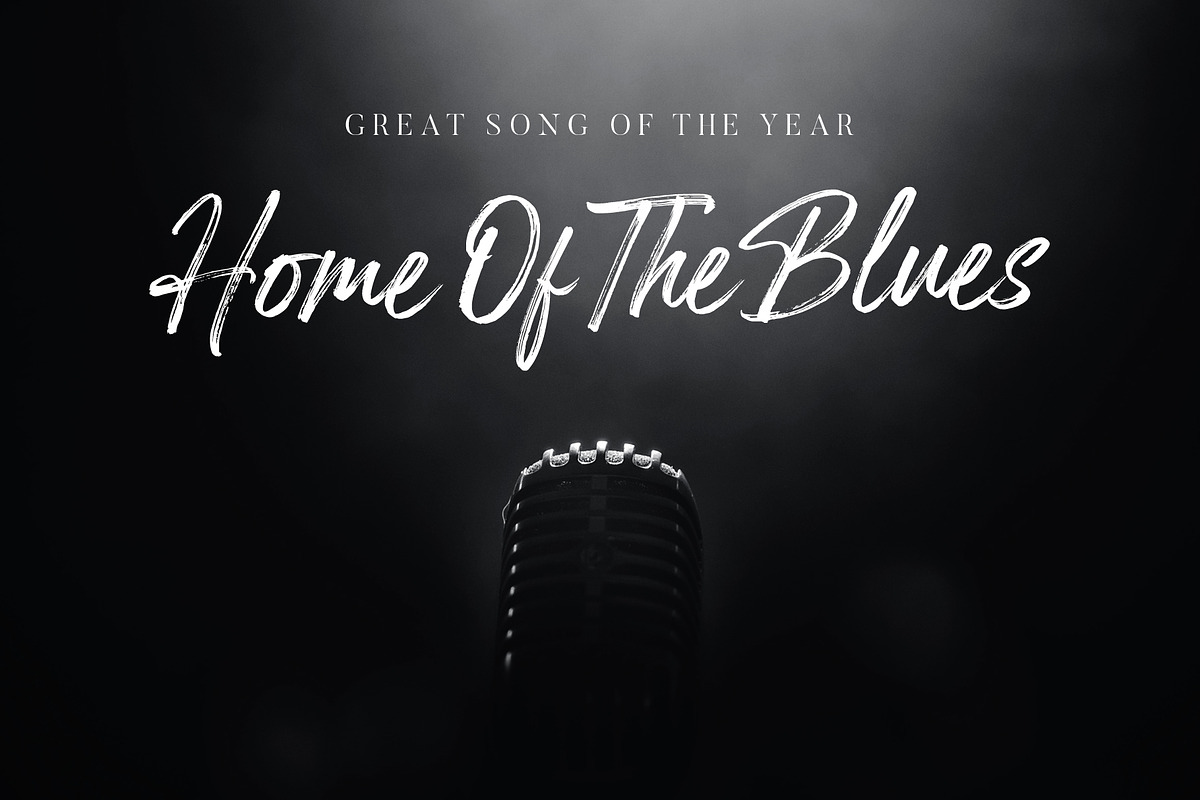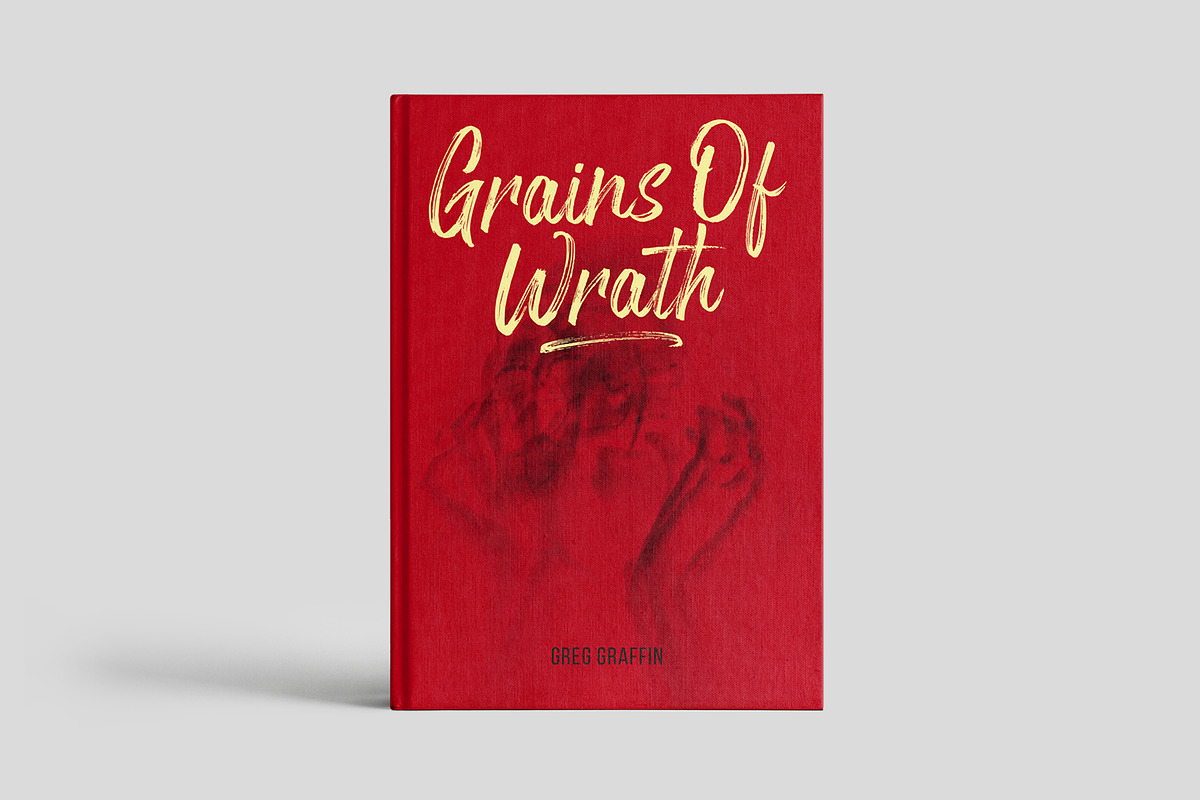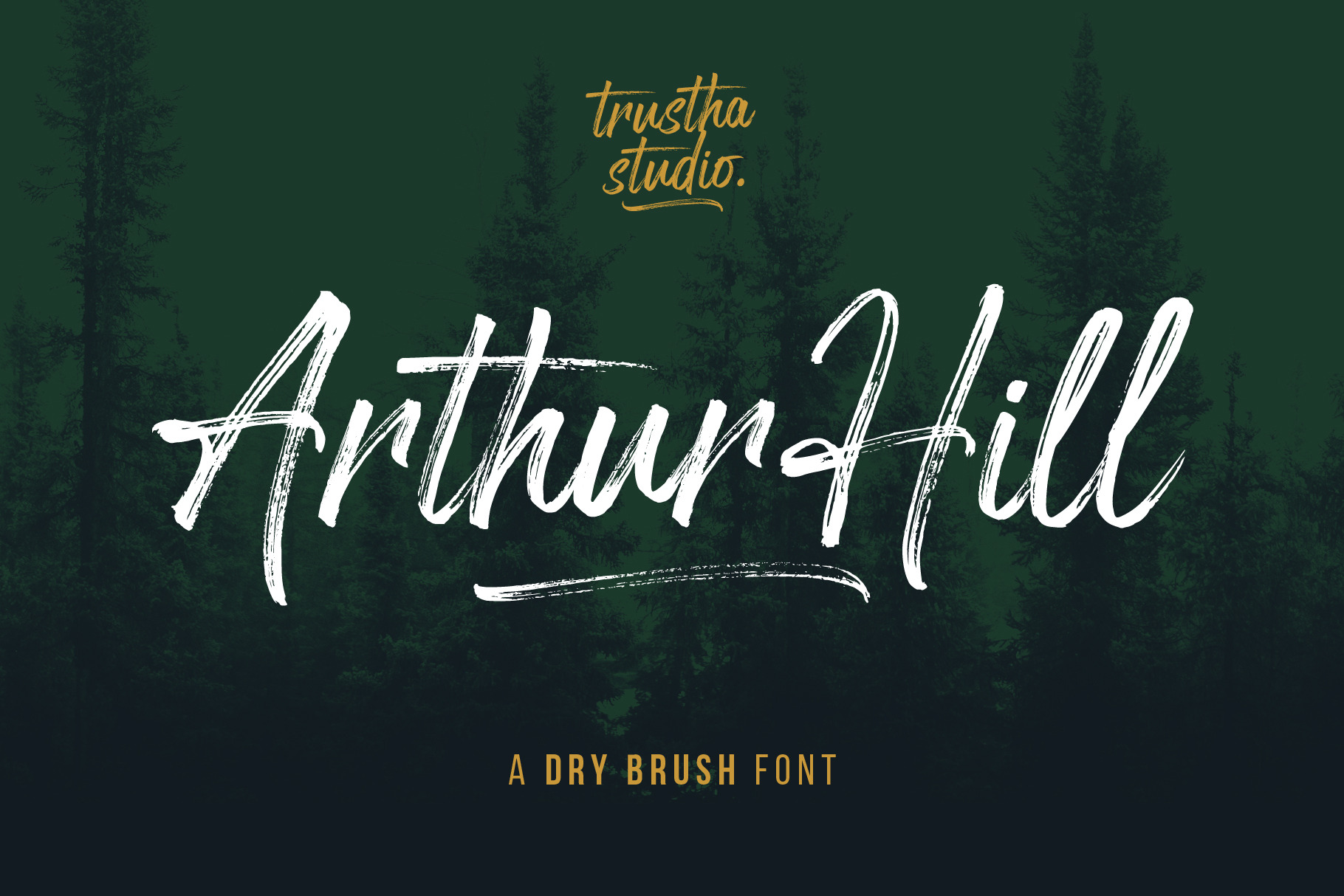
Arthur Hill Font
Arthur Hill is a handwritten font with dry brush pen. With sharp detail makes it perfect for branding, logo, advertising, poster, website header, album cover, packaging, book cover, quotes, magazines, and much more!